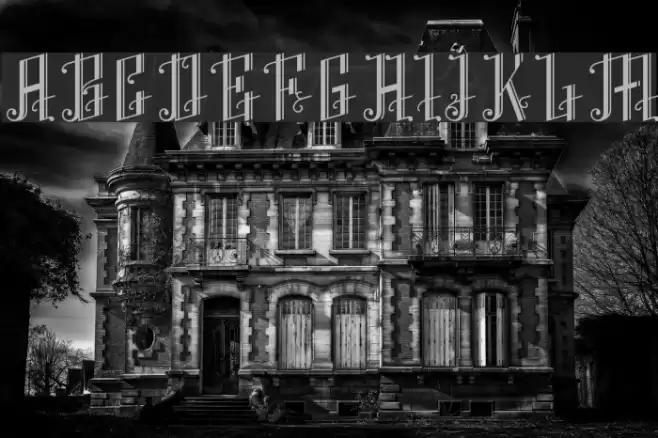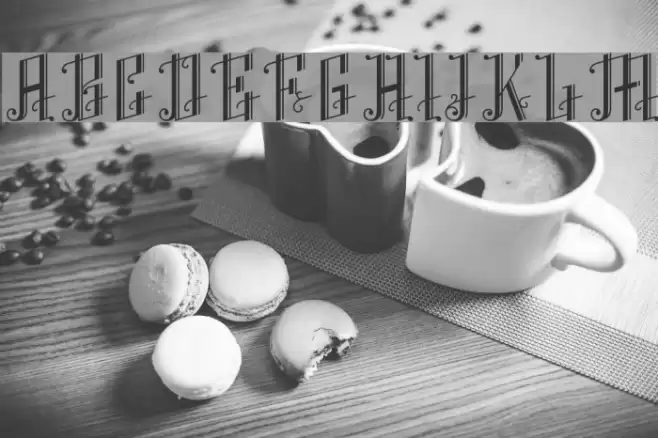
K22 Angular Text Font
K22 Angular Text Description
This font exudes a bold and decorative style, characterized by its angular and intricate design. Each letter features sharp edges and elaborate flourishes, giving it a distinct and ornate appearance. The uppercase letters are particularly striking, with their tall, narrow forms and embellished serifs. The lowercase letters maintain the decorative theme, though they are slightly more subdued in their ornamentation. Numbers and special characters follow the same stylistic cues, ensuring a cohesive look across all glyphs. This font's unique design makes it stand out, ideal for projects that require a touch of elegance and sophistication.
A bold, decorative font with angular, ornate designs and intricate flourishes from Uncategorized fonts.
- Proposed Projects: Ideal for wedding invitations, luxury branding, high-end product packaging, and decorative posters.